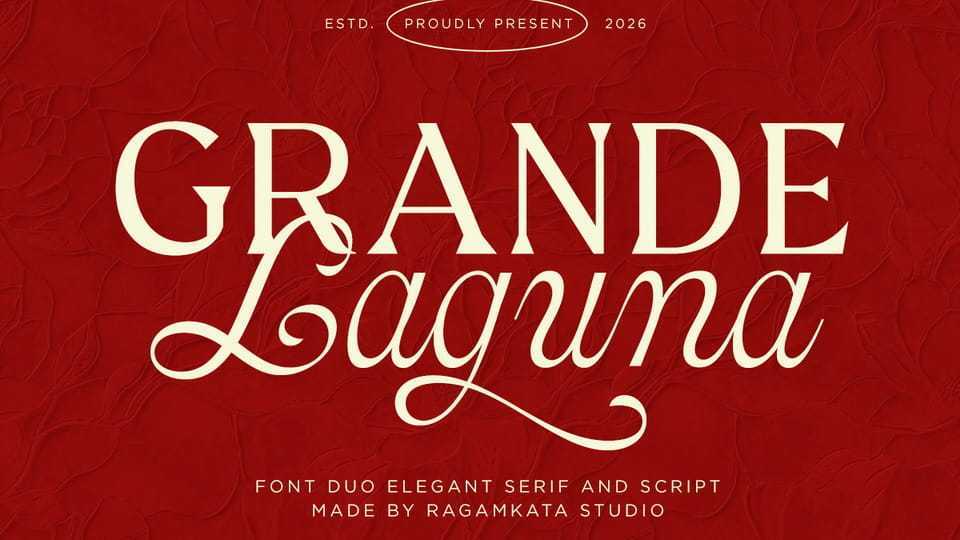
Download Grande Laguna font, an elegant typeface that beautifully blends a refined serif with a graceful script. Designed to create harmony between structure and fluidity.